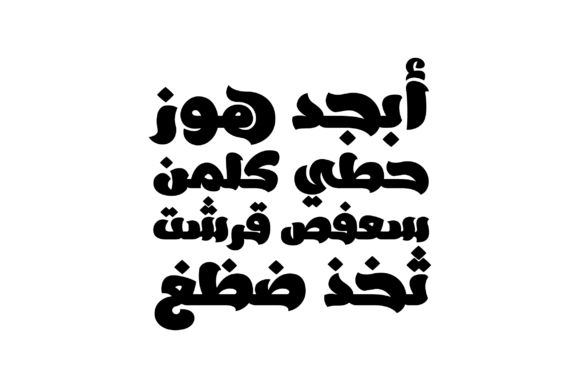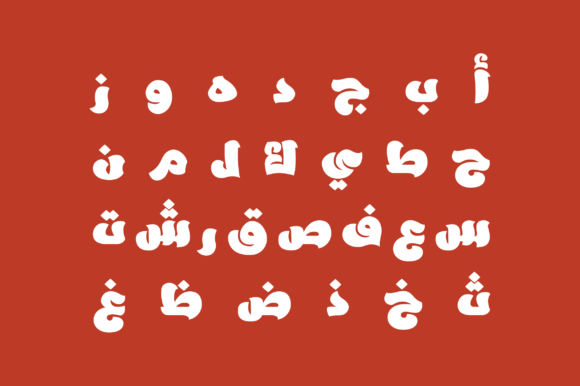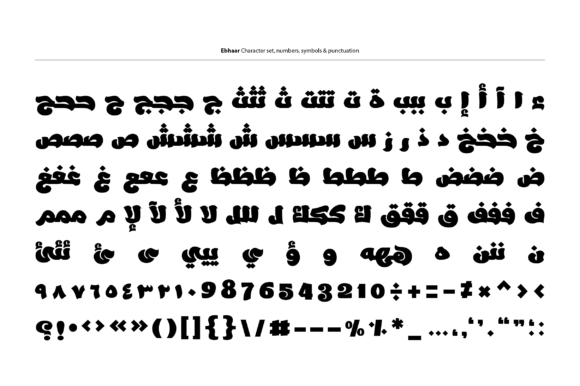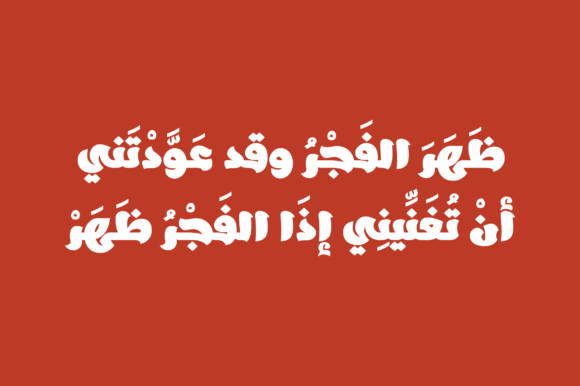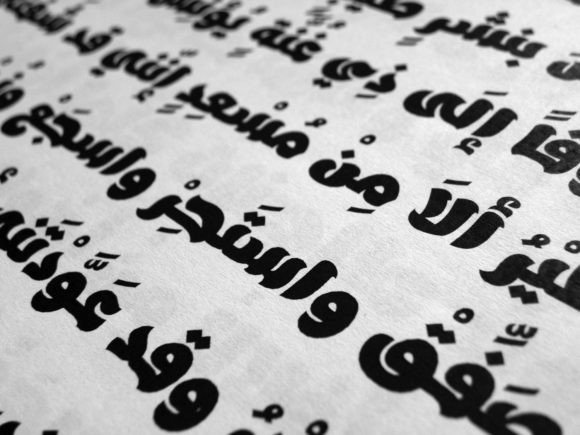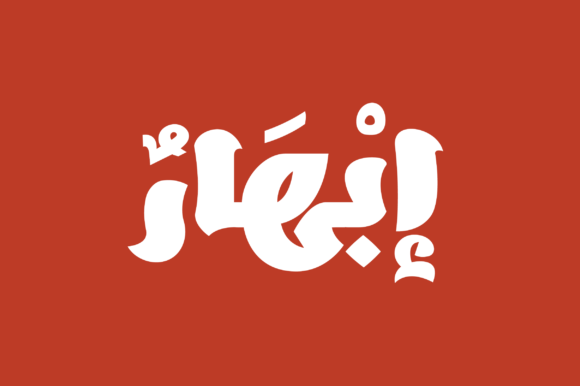
Introducing Ebhaar Font: The Dazzling Arabic Display Font
The world of typography has just got a whole lot more exciting with the introduction of Ebhaar Font, an Arabic display font that embodies the perfect blend of modern brush-pen lettering and traditional Arabic calligraphy. The word ‘Ebhaar’ itself is the Arabic term for ‘Dazzle’, and that’s precisely what this font does – it dazzles with its unique and captivating style.
The Inspiration Behind Ebhaar Font
Ebhaar Font is the brainchild of designers who sought to create a typface that would not only pay homage to the rich heritage of Arabic calligraphy but also infuse it with a modern twist. The result is a font that is both elegant and edgy, making it perfect for designers and crafters looking for a unique way to express themselves.
What Makes Ebhaar Font Special?
Ebhaar Font is more than just a pretty face; it’s a versatile typface that can be used in a variety of design projects. Here are some of its standout features:
- Unique Brush-Pen Lettering Style: Ebhaar Font boasts a distinctive brush-pen lettering style that gives it a hand-crafted, organic feel.
- Traditional Arabic Calligraphy: The font seamlessly integrates traditional Arabic calligraphy elements, making it perfect for designs that require a touch of cultural authenticity.
- Display Font: Ebhaar Font is specifically designed as a display font, making it ideal for headings, titles, and casual titling.
- Multilingual Support: The font supports multiple languages, including Arabic, English, and other languages that use the Latin script.
Use Cases for Ebhaar Font
Ebhaar Font is an incredibly versatile typface that can be used in a wide range of design projects, including:
- Branding and Logo Design: The font’s unique style makes it perfect for creating memorable brand identities and logos.
- Poster Design: Ebhaar Font is ideal for creating eye-catching posters, flyers, and brochures.
- Web Design: The font can be used to create stunning website headers, titles, and other design elements.
- Stationery Design: Ebhaar Font can add a touch of elegance to business cards, letterheads, and other stationery designs.
Tips for Using Ebhaar Font Effectively
To get the most out of Ebhaar Font, here are some tips to keep in mind:
- Use it as a Display Font: Ebhaar Font is designed to be used as a display font, so use it to create headings, titles, and other design elements that need to stand out.
- Experiment with Colors: The font’s unique style lends itself well to bold, vibrant colors, so don’t be afraid to experiment and find the perfect color scheme for your design.
- Pair it with Other Fonts: Ebhaar Font can be paired with other fonts to create a unique and visually appealing typography combination.
In conclusion, Ebhaar Font is a game-changer for designers and crafters looking for a unique and captivating Arabic display font. Its blend of modern brush-pen lettering and traditional Arabic calligraphy makes it perfect for a wide range of design projects. With its versatility, multilingual support, and stunning style, Ebhaar Font is sure to dazzle and inspire.